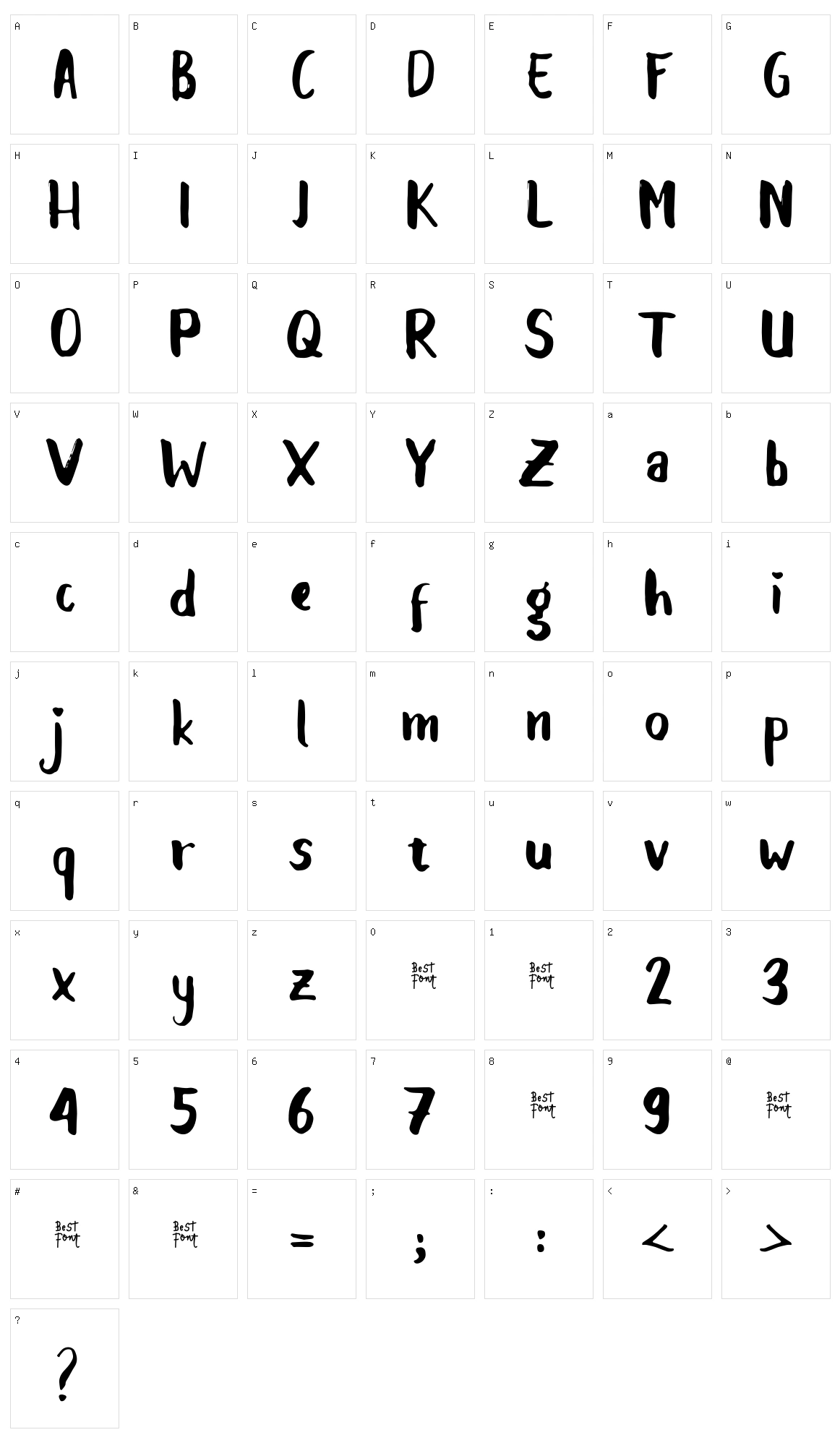
The free font Balalak is carefully designed by Best Font Studio, showcasing a thoughtful balance of creativity and usability and falls under the Script font style. When you download the ZIP file, it contains only 18.95 KB of font files, making it lightweight and quick to download. Please review the license details below to understand permitted usage and distribution rights. If license information is not available, we recommend using this font for personal projects only or contacting the author directly for commercial usage permissions.